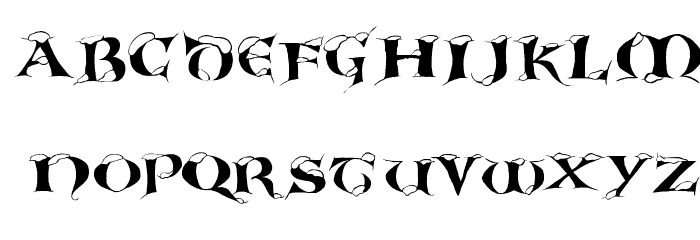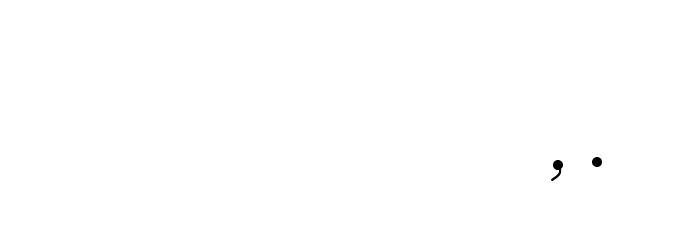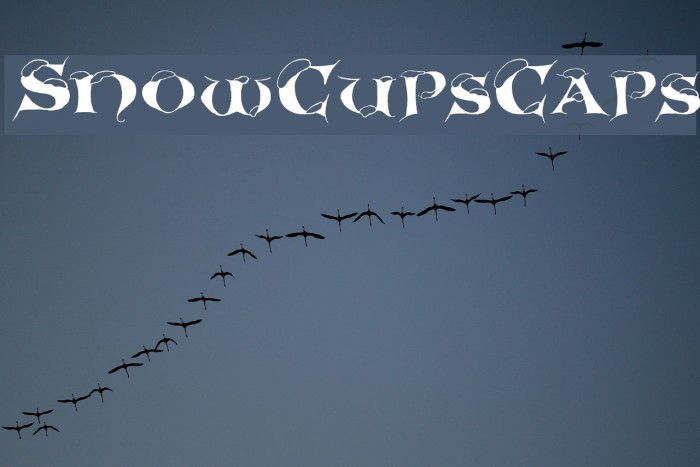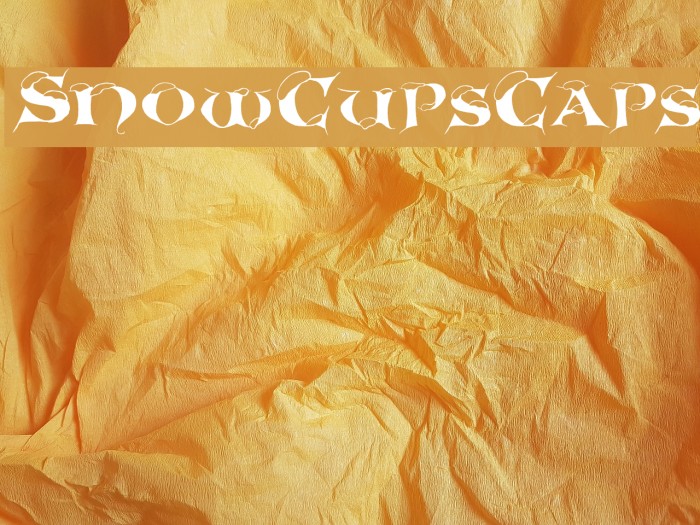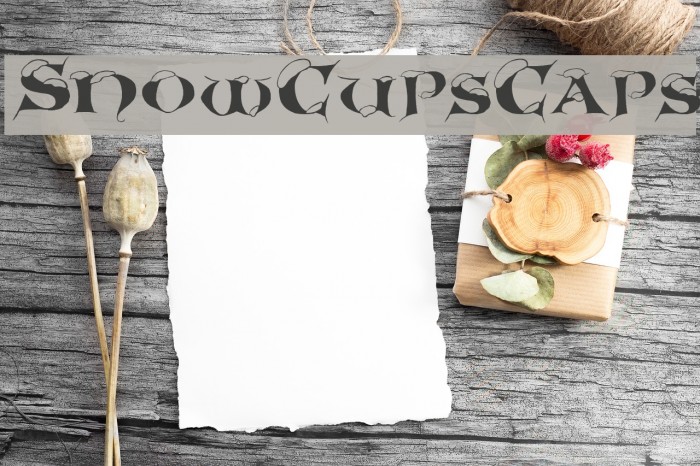
SnowCupsCaps Font
This font is a striking blend of traditional and modern elements, featuring sharp, angular lines and intricate detailing reminiscent of Gothic or Blackletter styles. The uppercase and lowercase letters are adorned with unique flourishes that give the typeface a decorative and ornate appearance. The characters are bold and commanding, with a high contrast between thick and thin strokes, enhancing their dramatic impact. The overall design is both elegant and edgy, making it suitable for projects that require a touch of sophistication and flair.
A bold, decorative font with Gothic influences and intricate detailing.
- Proposed Projects: Ideal for use in branding, logo design, posters, and invitations where a dramatic and elegant touch is desired.